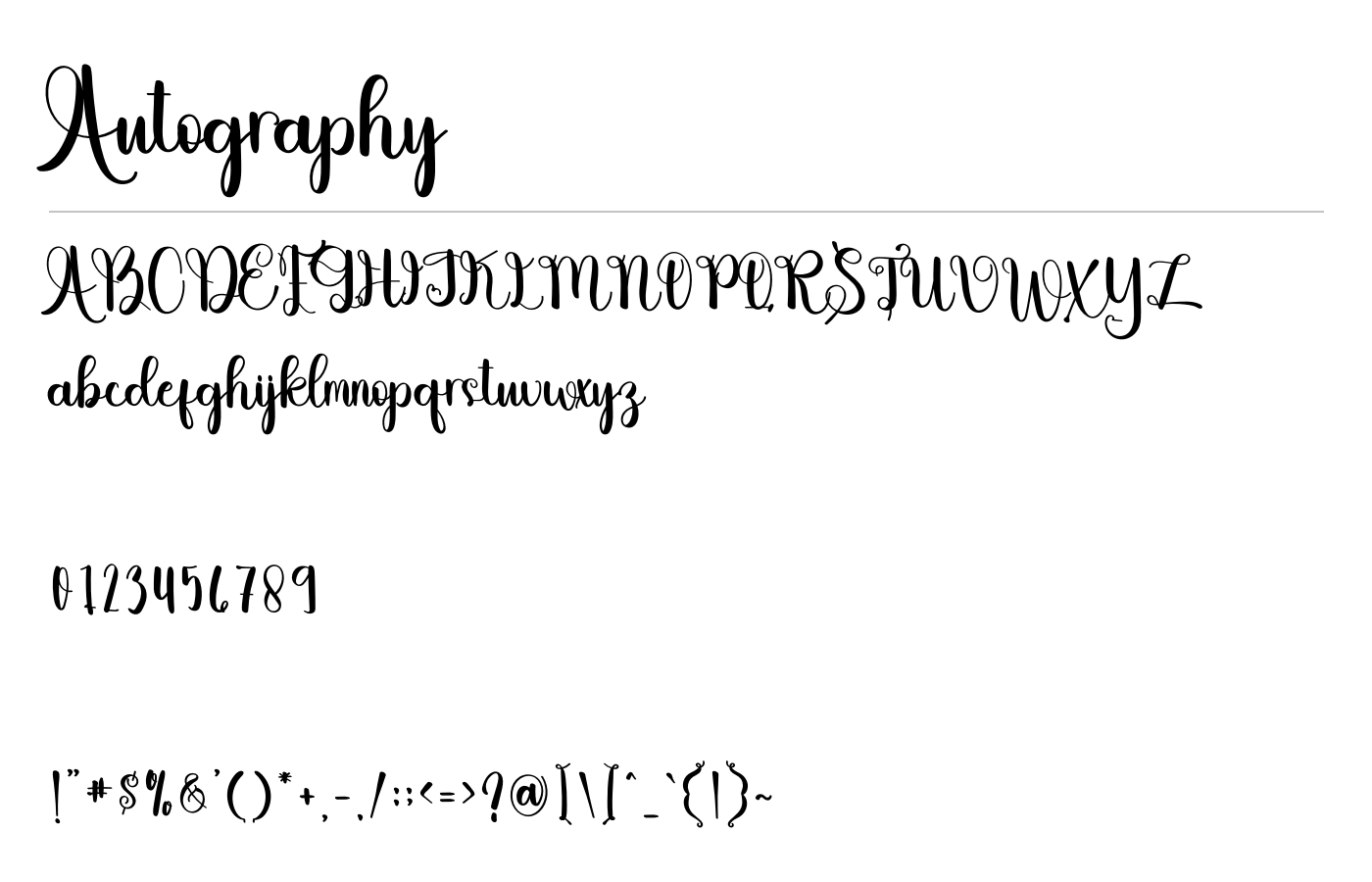
Autography is a charming script font with a playful and elegant flair, featuring smooth, flowing strokes and whimsical letterforms that evoke a handwritten, personalized feel. Its varying stroke width and decorative uppercases make it perfect for creative projects like invitations, branding, and logos where a friendly yet stylish touch is desired. This font shines in settings that benefit from a warm, approachable, and artistic vibe.
Autography Font